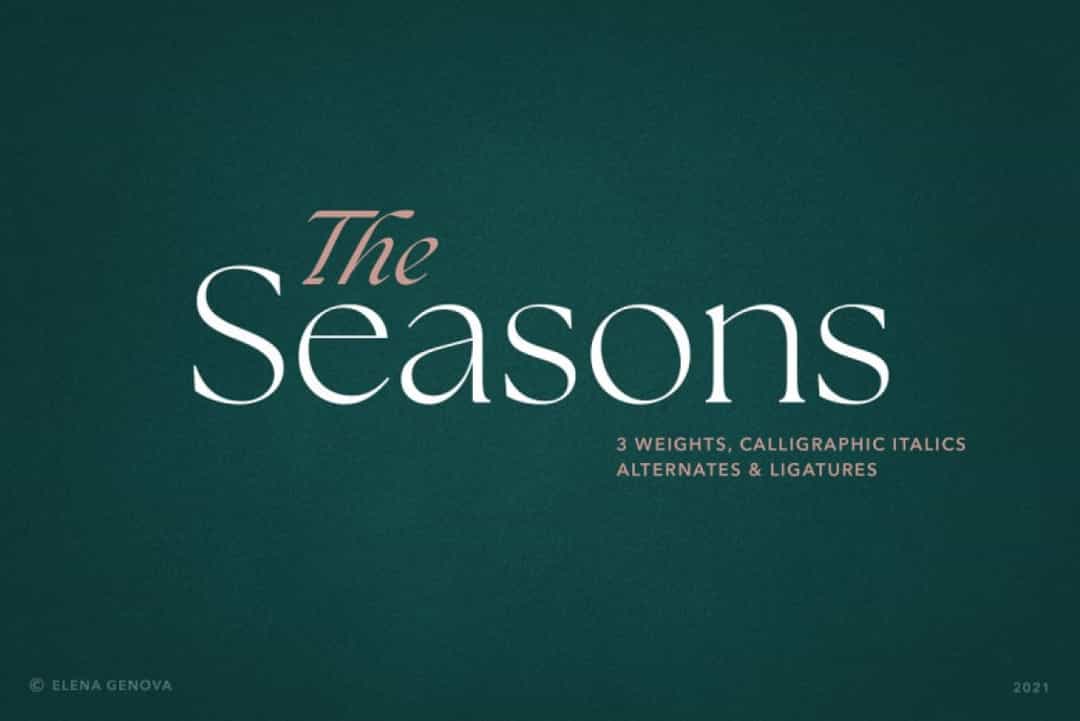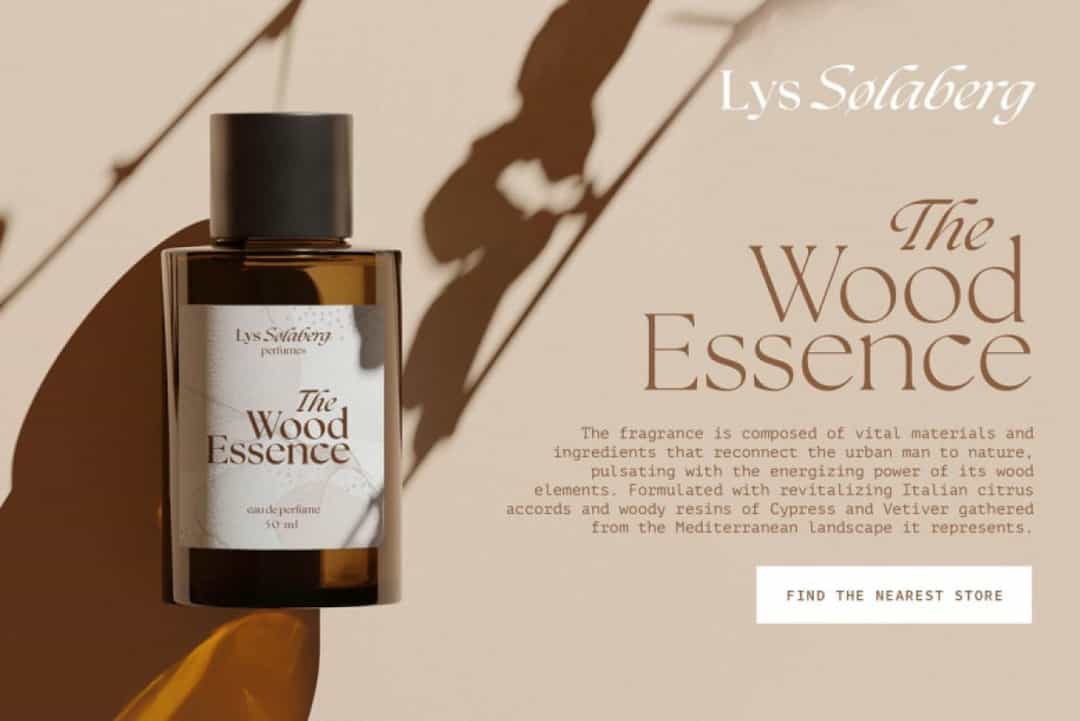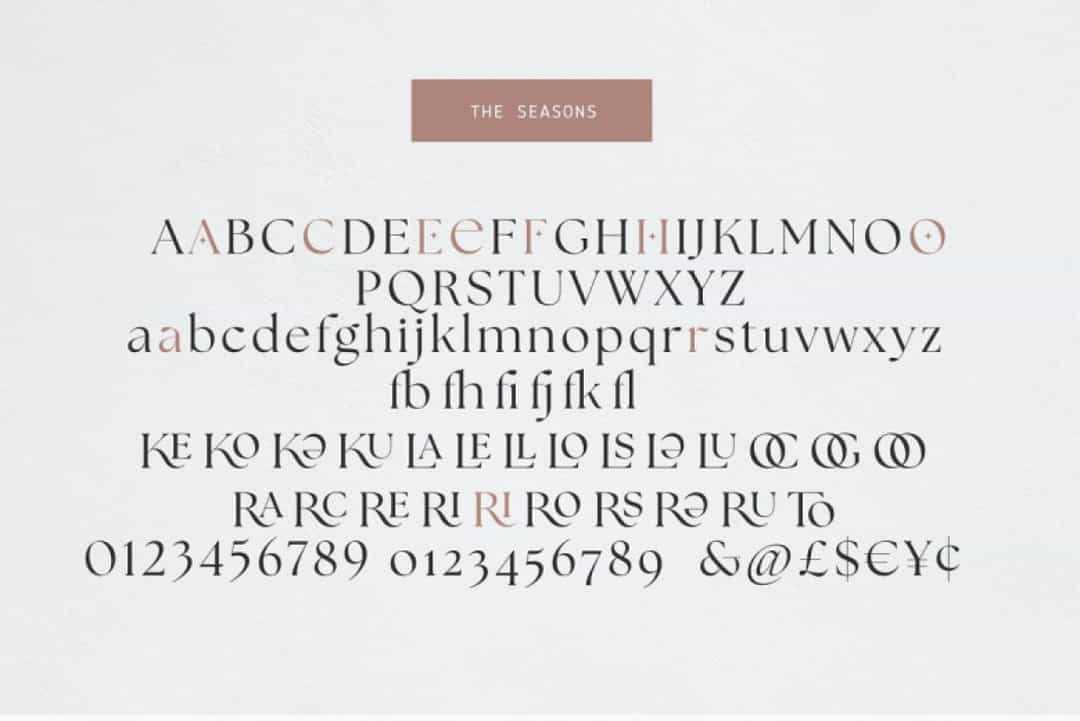
The Seasons is an elegant, classic serif font family, featuring high contrast fonts with vintage elegance, as well as calligraphic cursive italics inspired by various humanistic italic scripts and written with the Pilot Parallel Pen.